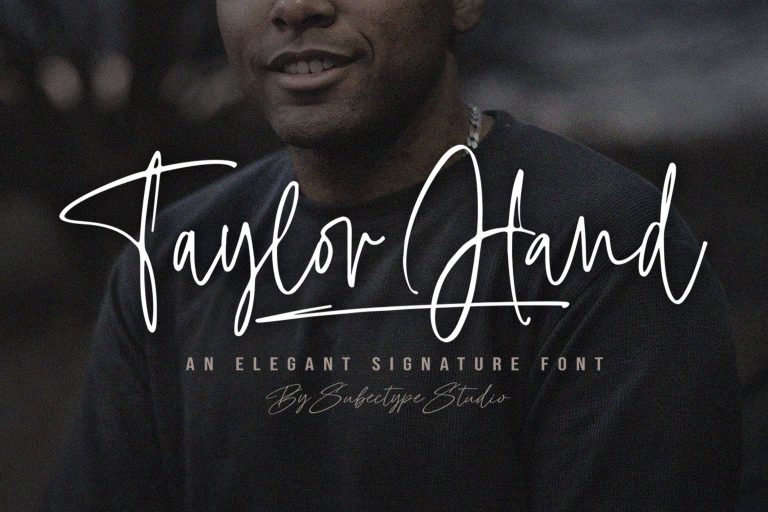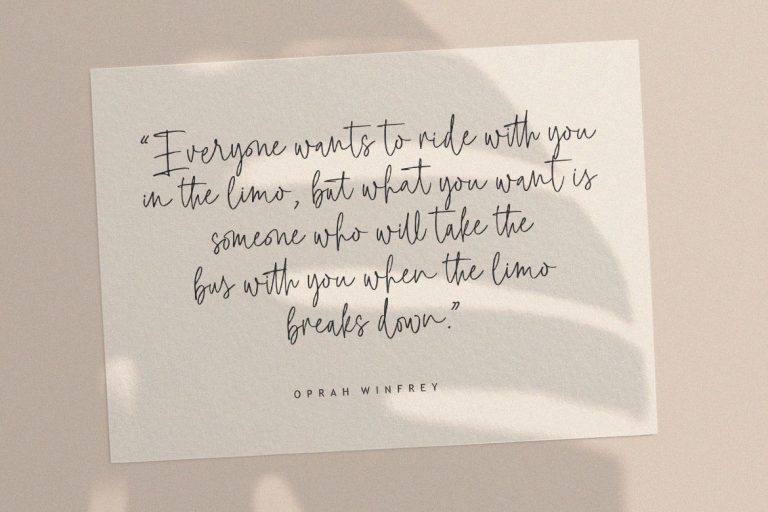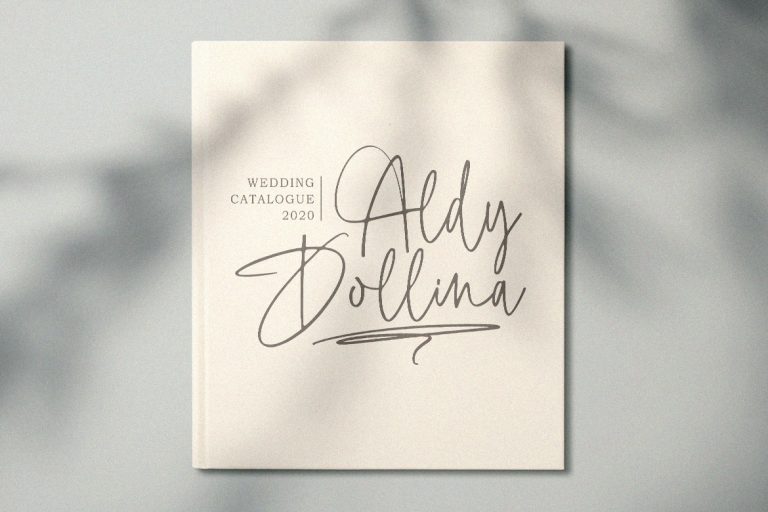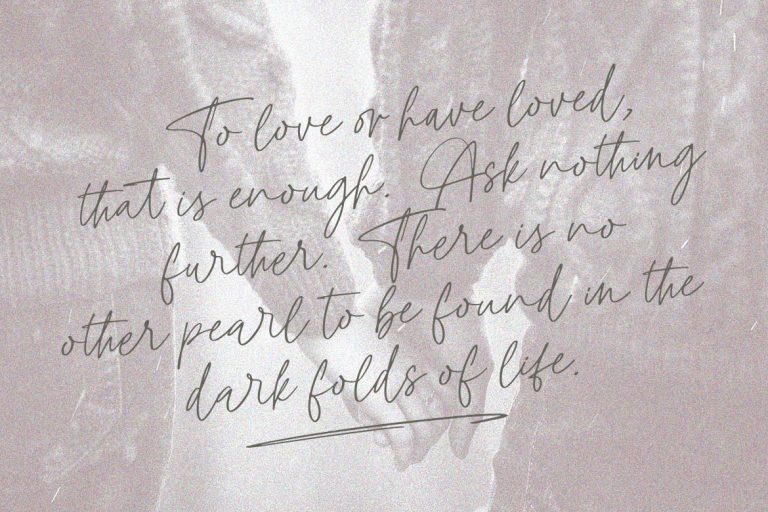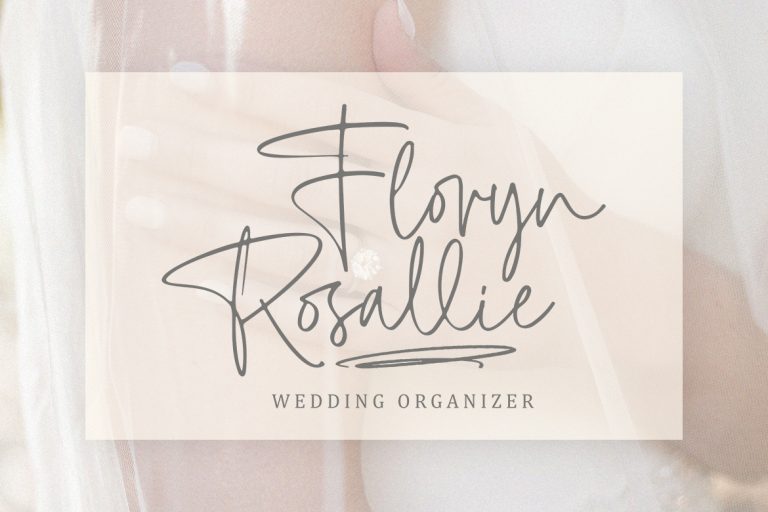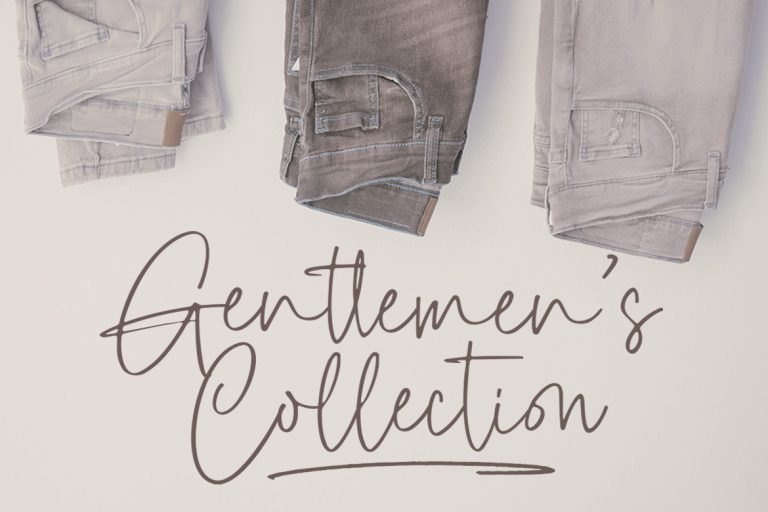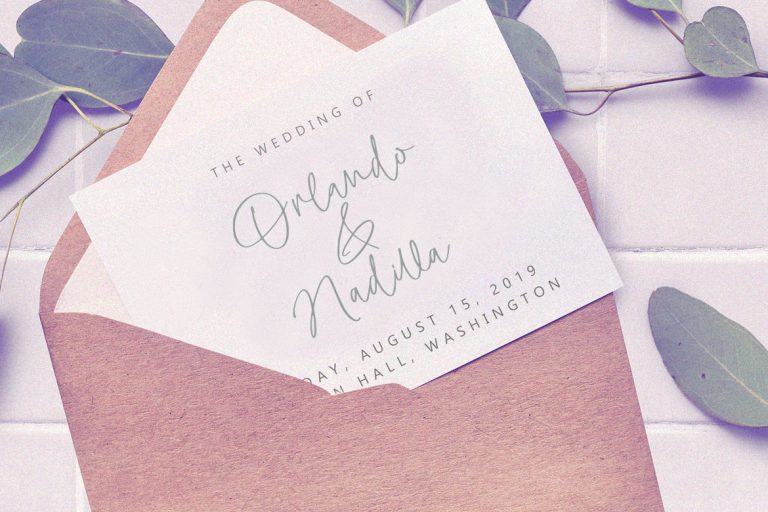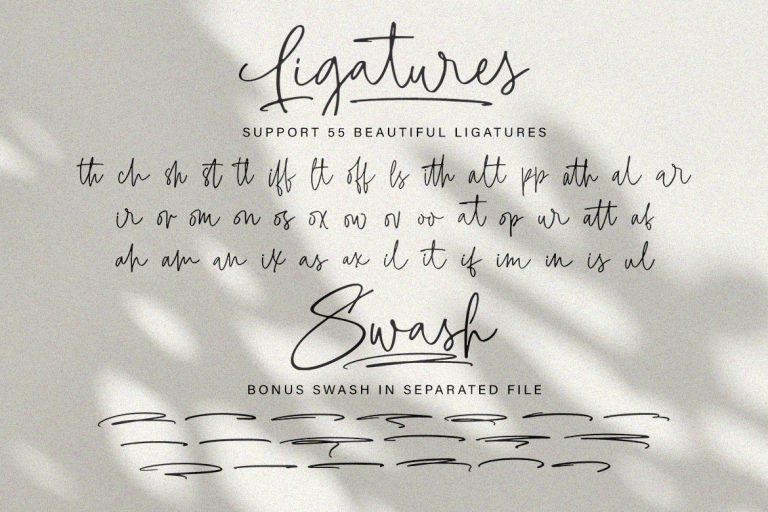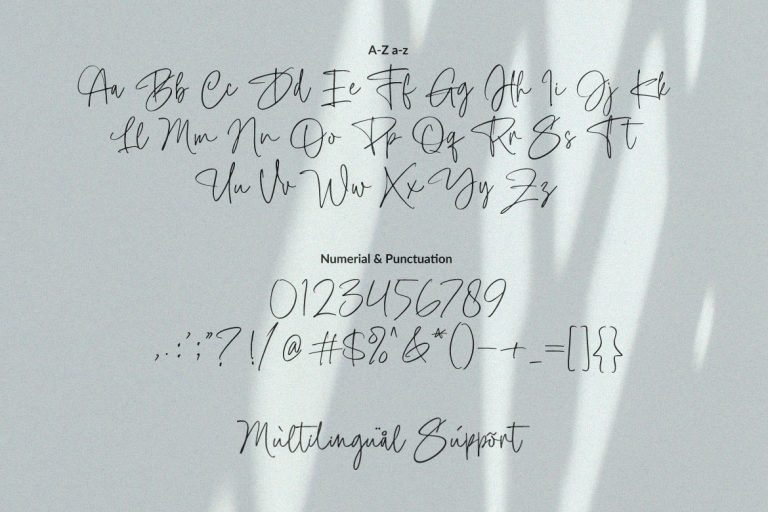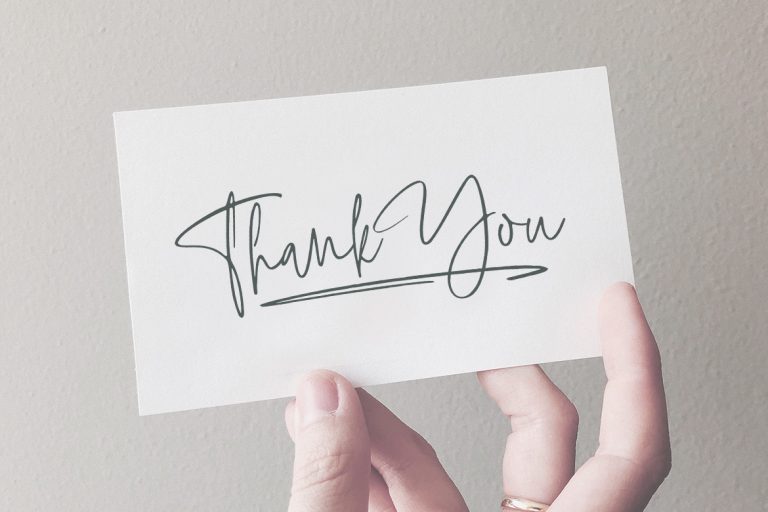
Taylor Hand
Introducing the new “Taylor Hand” font, an elegant signature font. For those of you who are needing a touch of elegant, chic and modernity for your designs, this font was created for you! Taylor Hand was built with beautiful ligatures and swashes. and It has an extensive lingual support, covering all European Latin scripts.